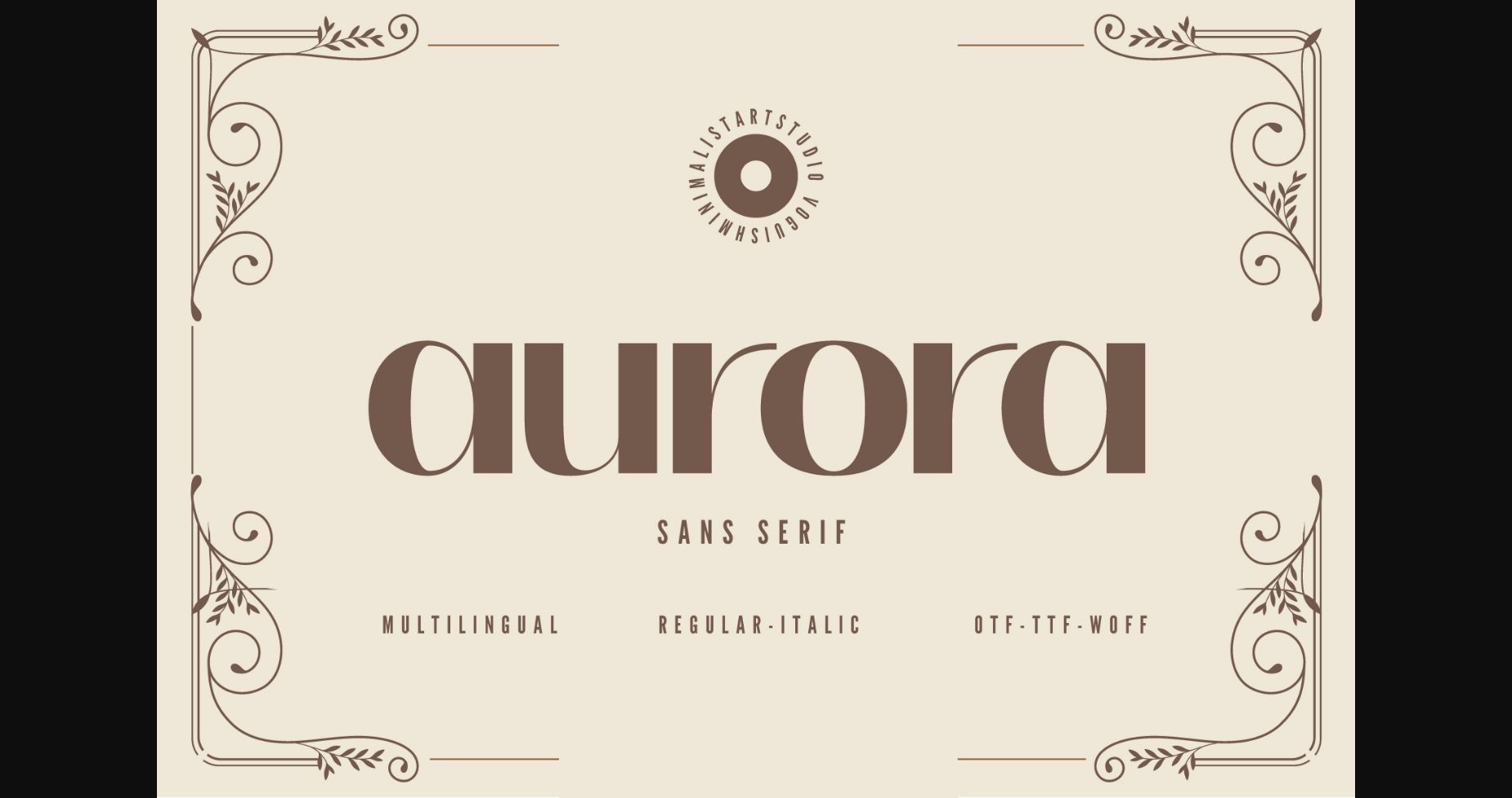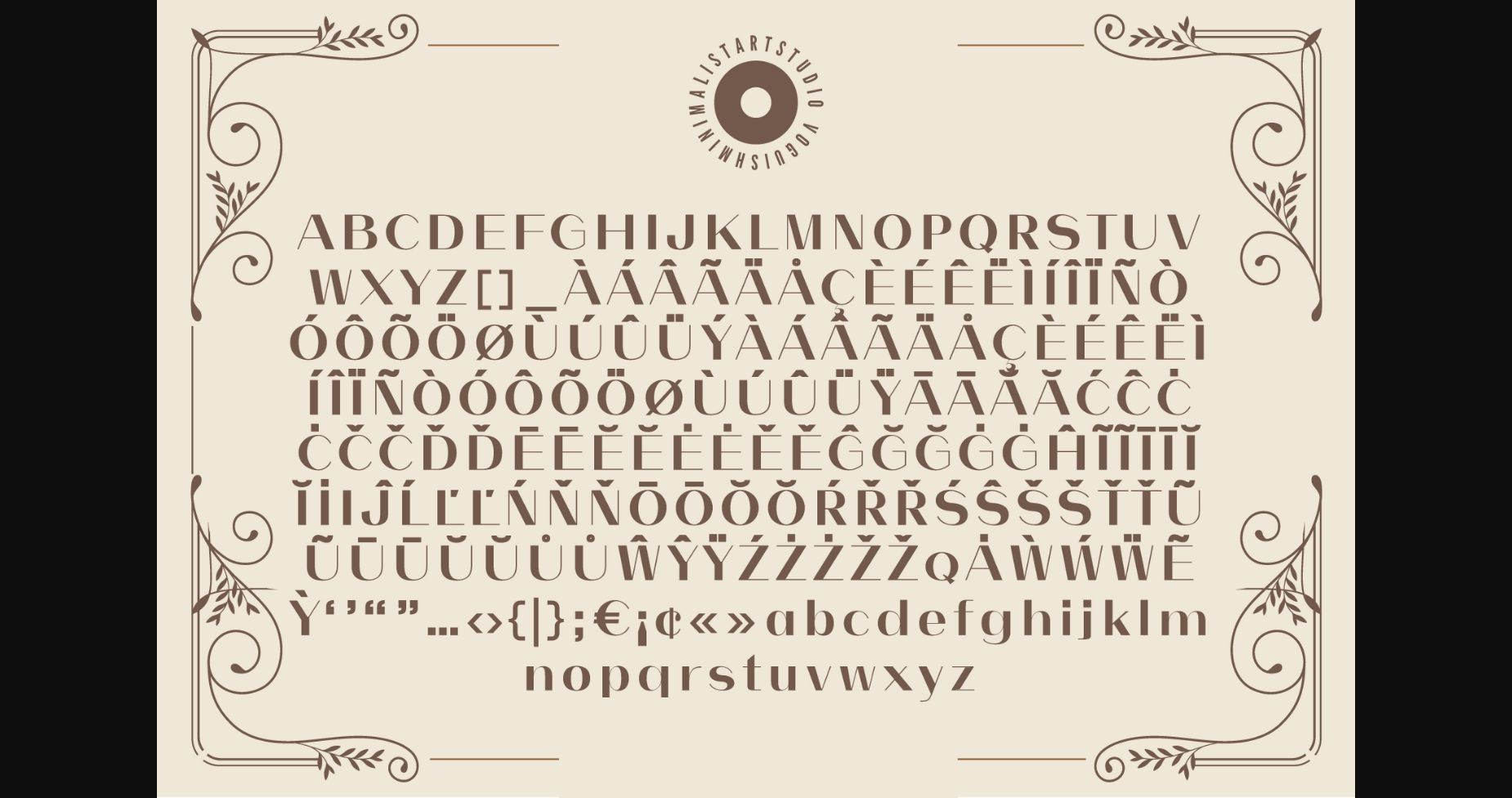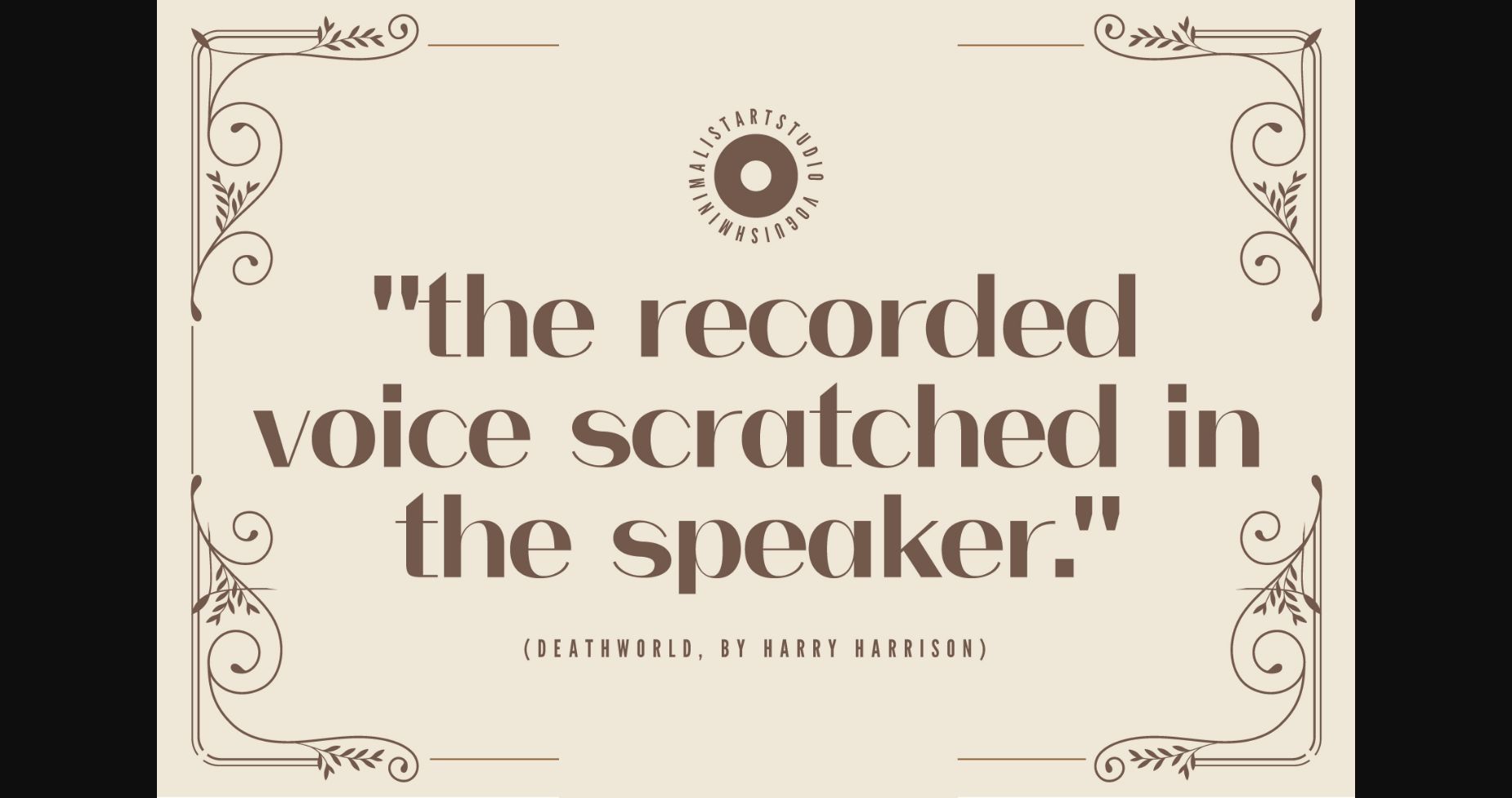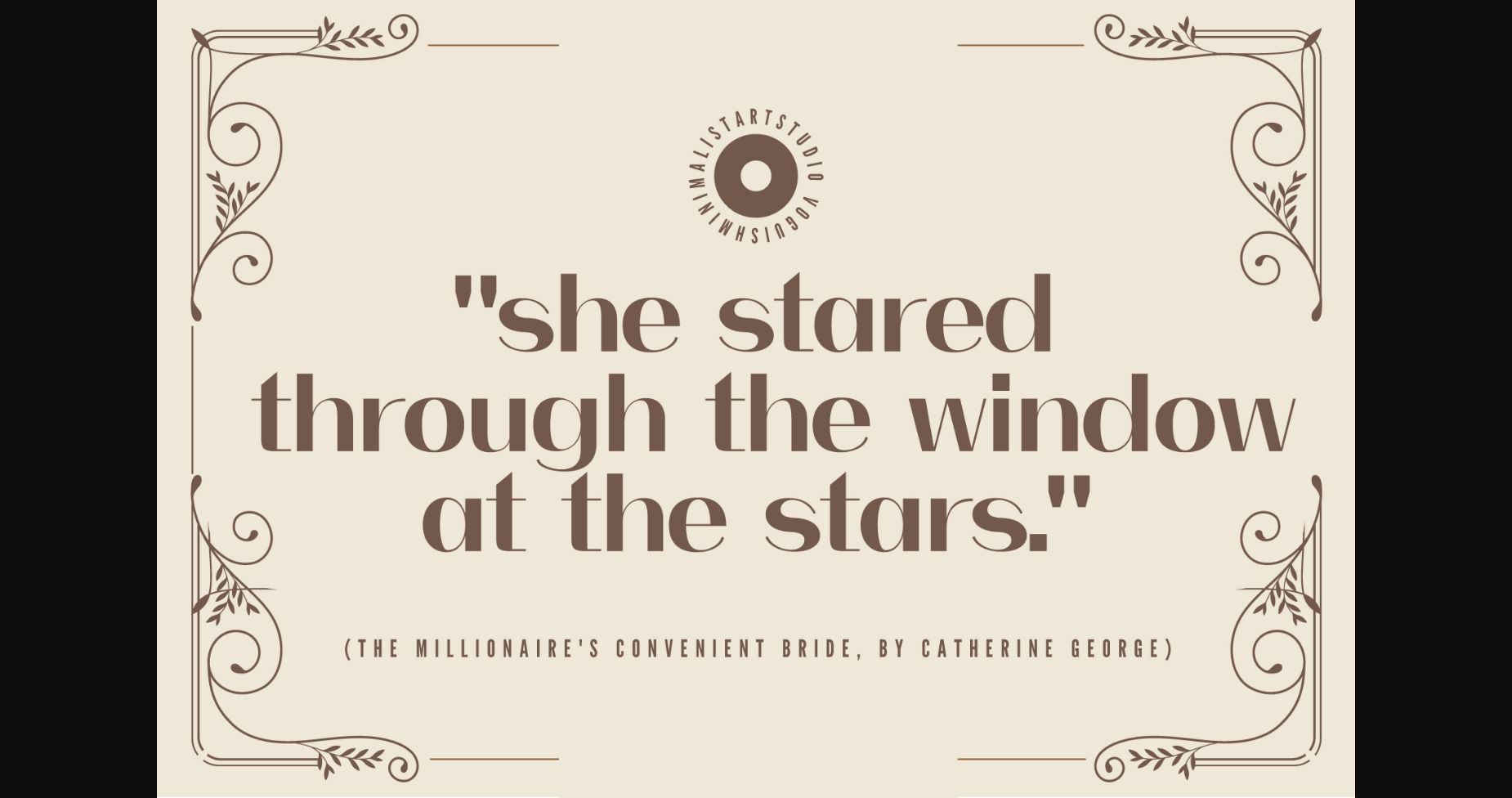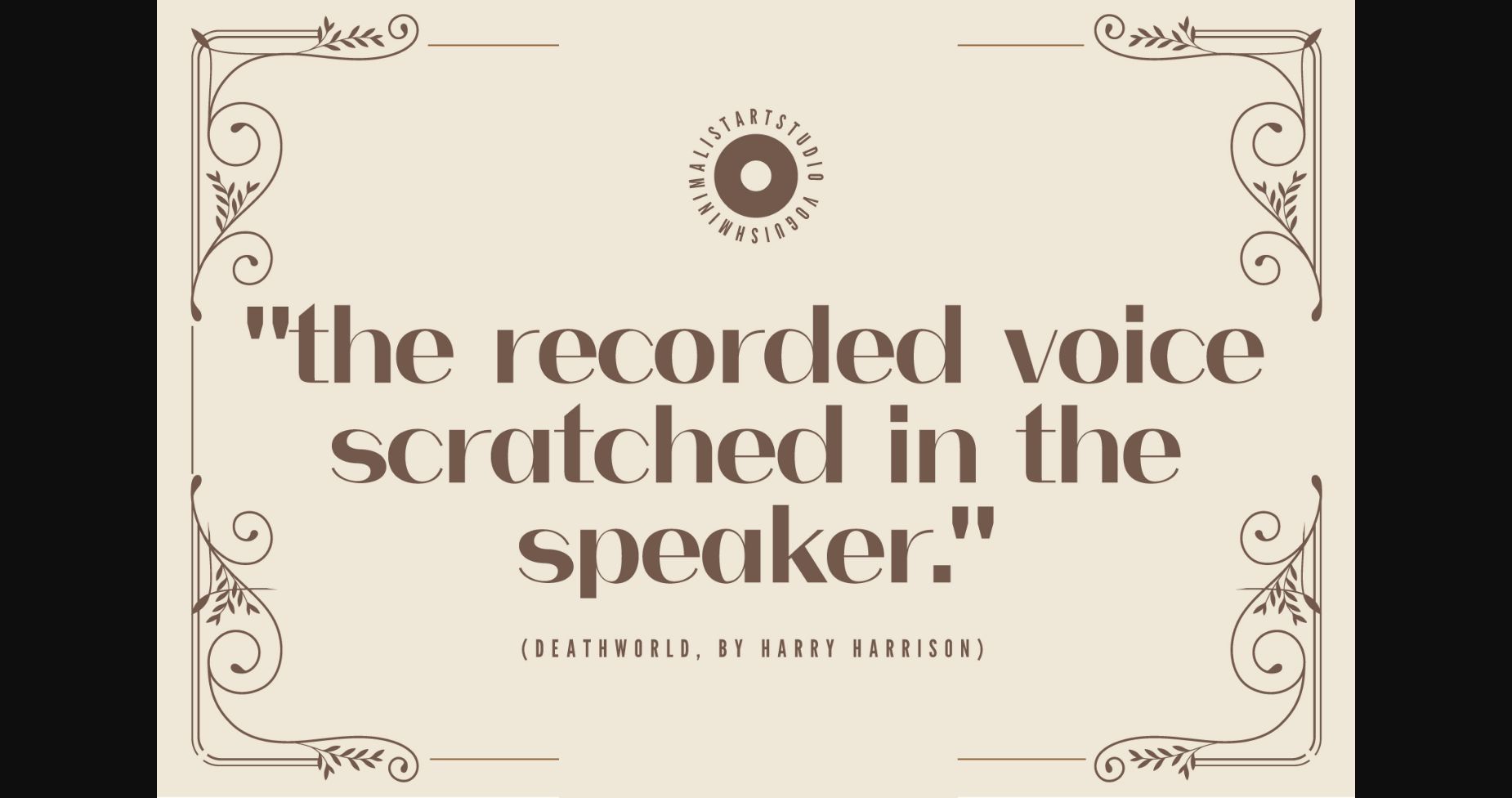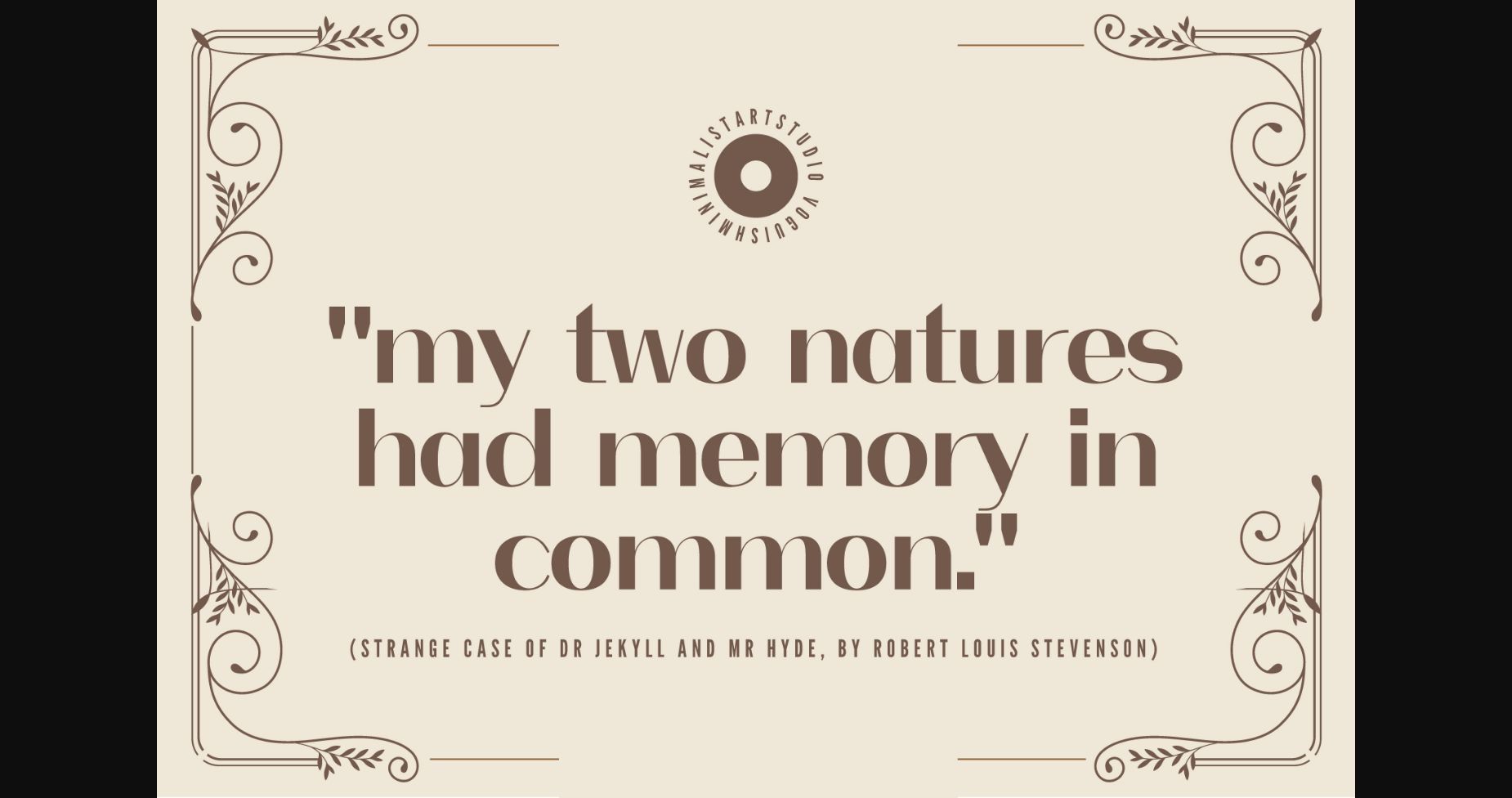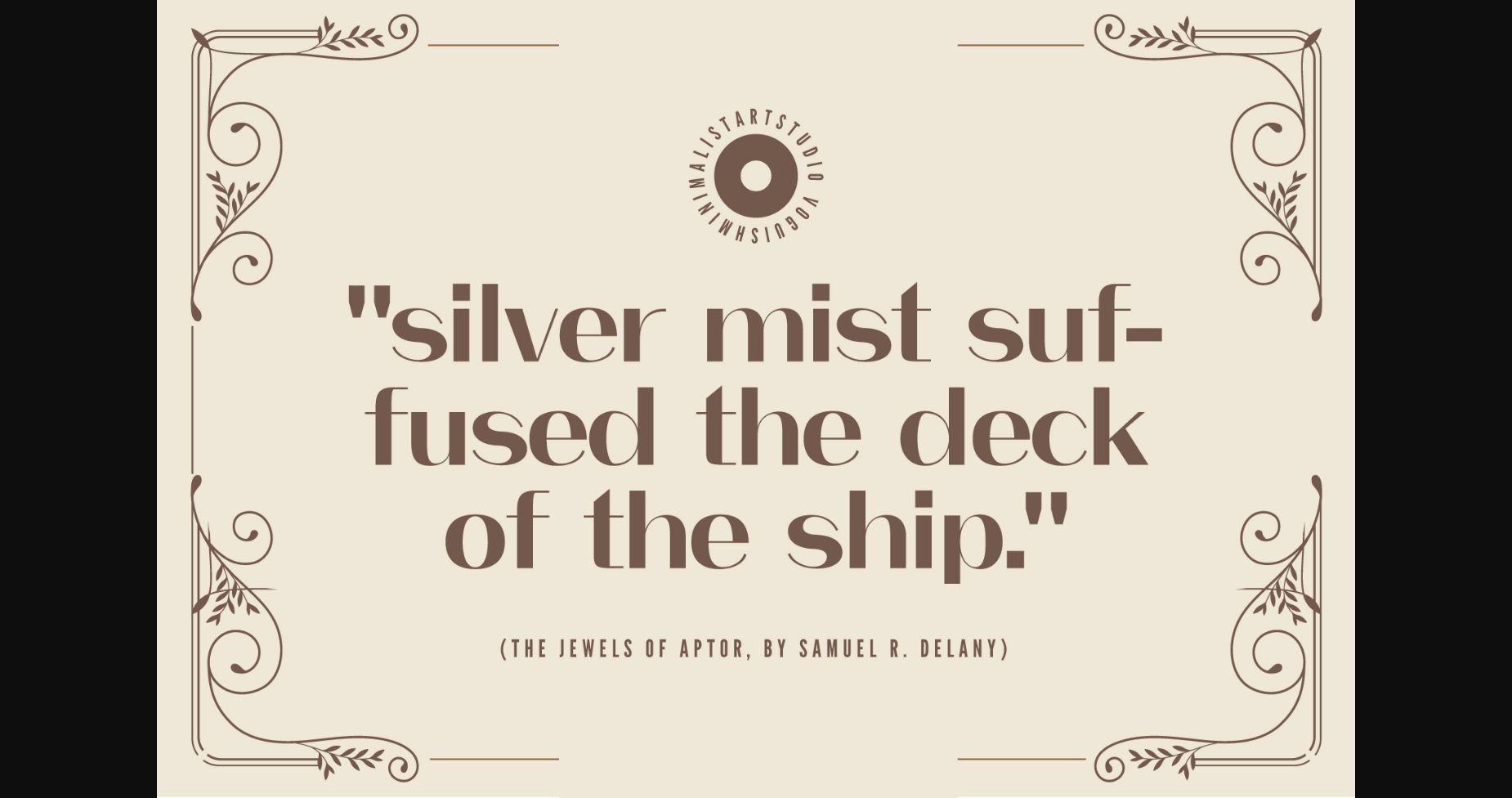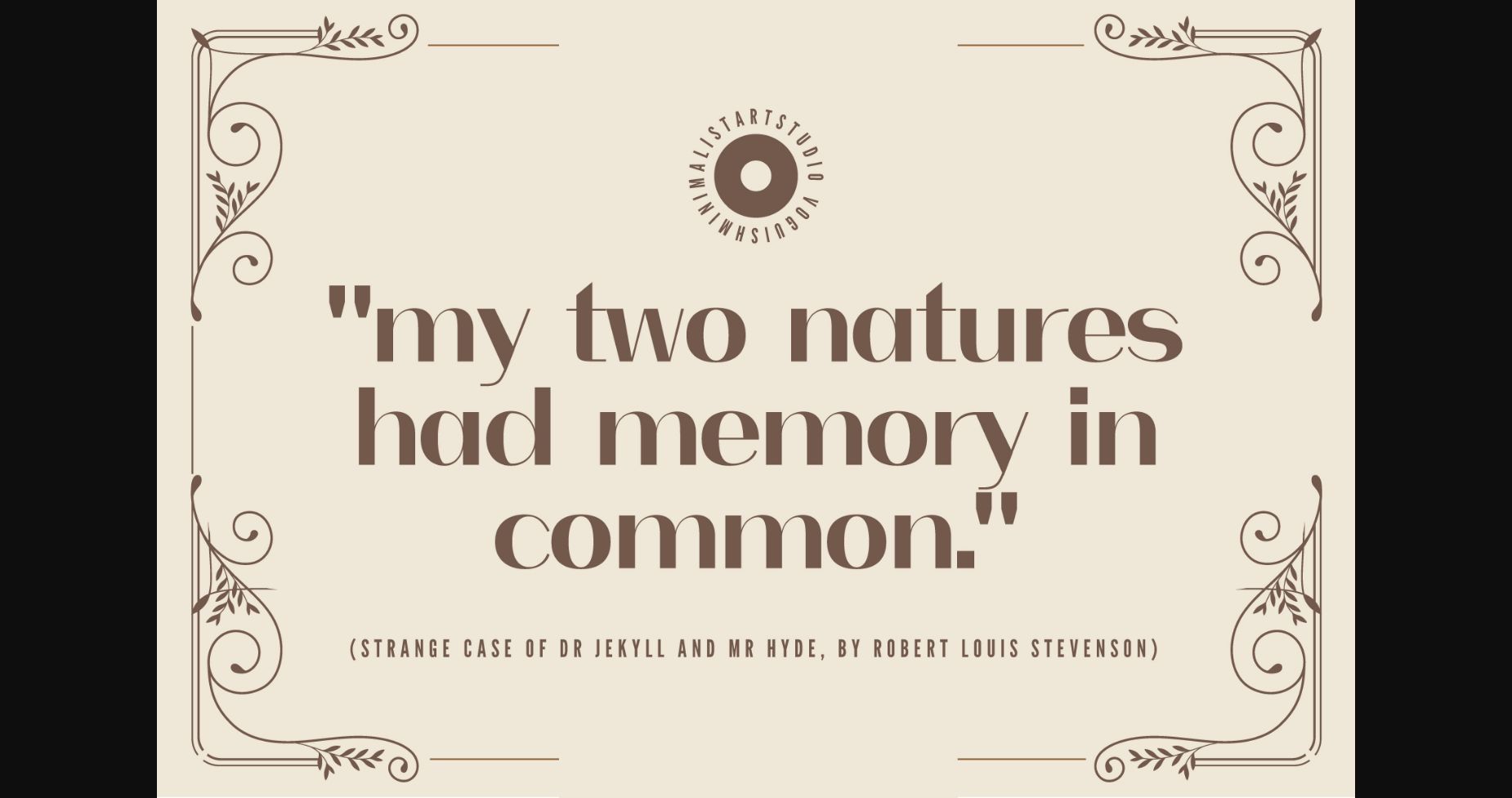
Aurora Font
About Aurora Font
Introducing Aurora, a font that is sure to leave a lasting impression. This elegant and minimalist sans-serif font is perfect for those who want a clean and sophisticated look for their designs. With its sleek lines and elegant curves, Aurora exudes a chic and refined aesthetic that is sure to elevate any project. Whether you’re working on branding, packaging, or any other design project, Aurora is the perfect font to bring a touch of class to your work.
One of the key features of Aurora is its small caps. These small caps are designed to add a subtle touch of elegance to your design, making it perfect for headlines and titles. In addition, Aurora also supports multiple languages, making it a versatile font that can be used in projects all around the world.
Unlike other fonts, Aurora has no ligatures or alternative glyphs. This gives it a truly minimalistic look and feel, making it perfect for those who want a simple and timeless design. Without any unnecessary embellishments, Aurora is able to convey a sense of elegance and refinement that is sure to stand the test of time.
Overall, Aurora is a font that will bring a touch of class and sophistication to any design project. Its clean lines, elegant curves, and small caps make it perfect for branding, packaging, and any other project that requires a touch of class. With its multilingual support and minimalistic design, Aurora is a versatile and timeless font that is sure to be a valuable addition to any designer’s toolkit.